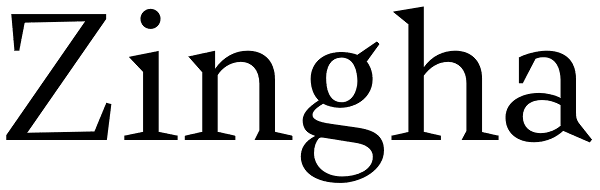
Zingha
Seen through the eyes of type designer Xavier Dupré, Zingha “balances French rhythm with American style.” Traditional inscriptions inspire design of the roman capitals, but Dupré allowed himself more freedom in the spirited lowercase and personal...